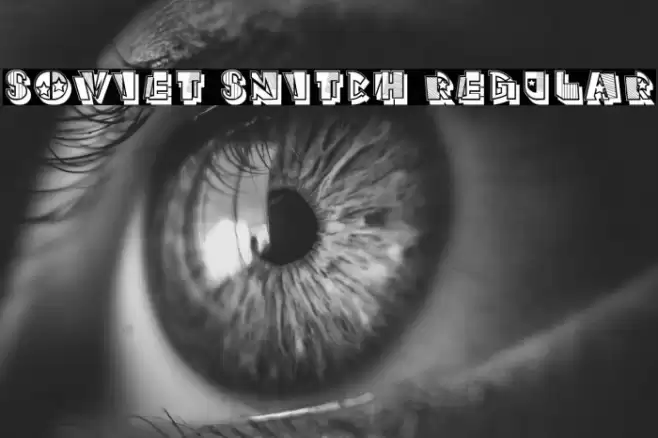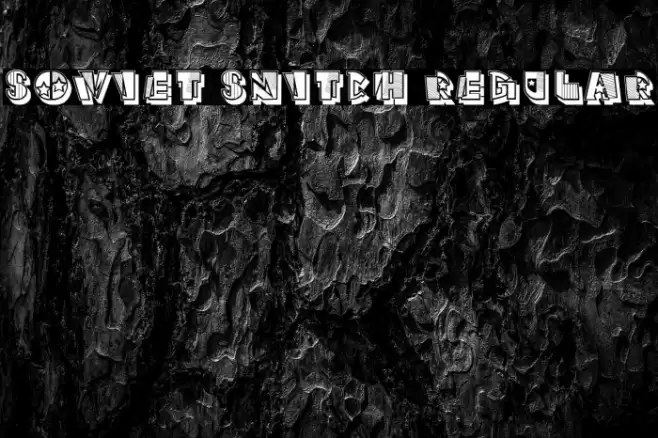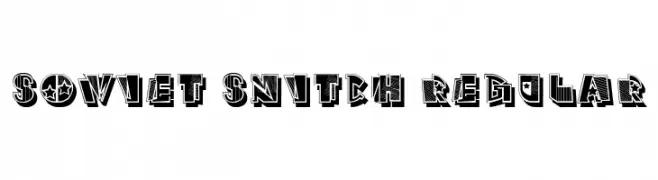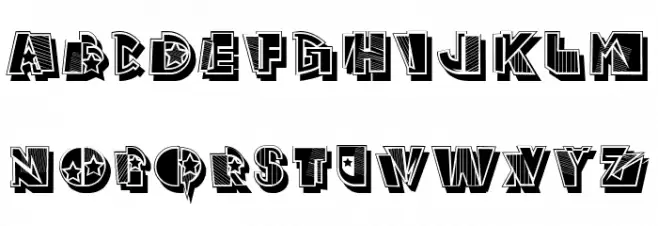
Soviet Snitch Regular Font
Soviet Snitch Regular Description
This font is a bold and striking display typeface with a distinctly geometric and angular design. Each character is crafted with a combination of solid fills and intricate line patterns, creating a dynamic and eye-catching appearance. The uppercase letters are particularly prominent, featuring sharp edges and a sense of movement. The font's unique style is reminiscent of constructivist art, with a modern twist that makes it suitable for contemporary design projects. The boldness of the characters ensures high visibility, making it ideal for headlines and titles. The intricate details within each letter add depth and texture, enhancing its visual appeal.
A bold, geometric display font with intricate line patterns and a constructivist style from Decorative fonts.
- Proposed Projects: Ideal for posters, album covers, branding, and any project requiring a bold, artistic touch.
- Contrast: High
- Overall Style: Modern, Constructivist
- Use Case: Headlines, Posters, Branding